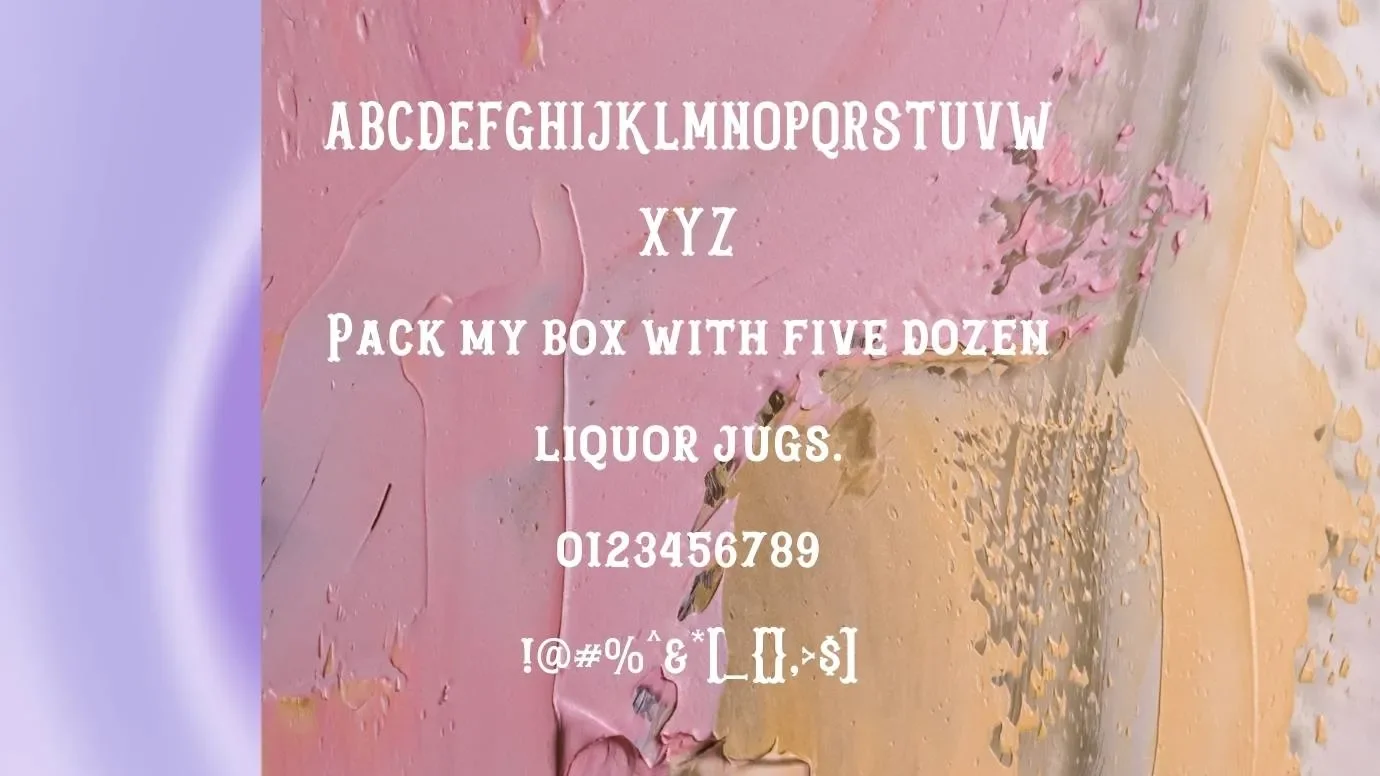
Blastrick Vintage Font is a display typeface that was initially designed for the first time by Graptail. The premium version of this font is available on the creative market. It comes in eight attractive weights that create a number of designs and styles. This display typeface looks like 3D font because 0f its sketching characters.
This typeface has 154 stylish and eye-catching letters including all lowercase and symbols. The shadow characters of this typeface make your designs more beautiful. It has more than one hundred aesthetic glyphs that make an impressive look to your text designs and projects.
Reason to Use Blastrick Vintage Font
This typeface is suitable for use in various types of personal as well as commercial purposes. You can use this attractive and stylish typeface for various designing logos designs, postcards designs, and many other related purposes. It is also suitable for all impressive text designs.
Many designers use this font for their product and projects logos and advertisement purposes of these projects. It is also perfect for headlines and titles of websites and personal blogs. This typeface is good for the header and footers of any document.
Blastrick Vintage Font View
Blastrick Vintage Font Family (Includes Total 08 Types)
- Blastrick Normal Outline
- Blastrick Normal Shadow
- Blastrick Special Outline
- Blastrick Special Shadow
- Blastrick Normal
- Blastrick Normal Inline
- Blastrick Special
- Blastrick Special Inline
Who created Blastrick Vintage Font?
It was created for the first time by Graptail and it comes in attractive and fantastic 08 styles. Many designers love this font due to its elegant look.